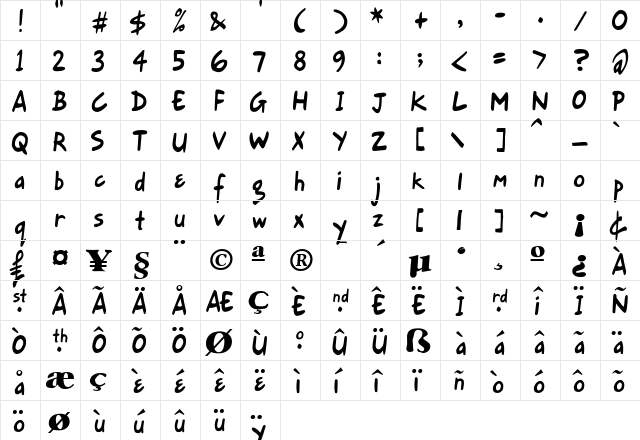
Gort's Fair Hand Upright Medium
| Designer | Bree Gorton & George Herbert Hirst |
Design Context for Gort's Fair Hand Upright Typeface
Gort's Fair Hand Upright flows with the natural rhythm of handwritten lettering, making it ideal for designs that call for warmth and personal expression.
Font Pairing: Combine Gort's Fair Hand Upright with a simple geometric sans for maximum contrast — the tension between flowing curves and clean structure is a classic typographic pairing.
Pro Tip: Pair Gort's Fair Hand Upright with a clean sans-serif for supporting text. The contrast between fluid script and geometric structure creates an elegant typographic hierarchy.